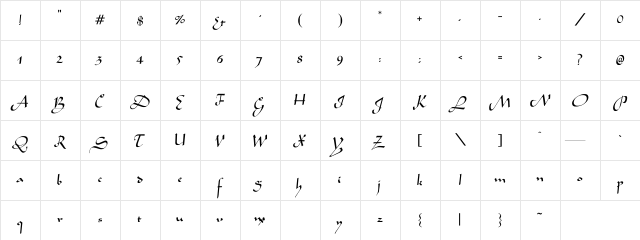
Complete Alladin Normal Regular glyph index. Displaying only characters natively supported by Alladin Normal Regular font.
Alladin Normal is a composed and adaptable typeface that performs quietly and consistently across a wide range of design contexts.
Pro Tip: Use Alladin Normal in both headline and body roles to test its range before committing to a single application.